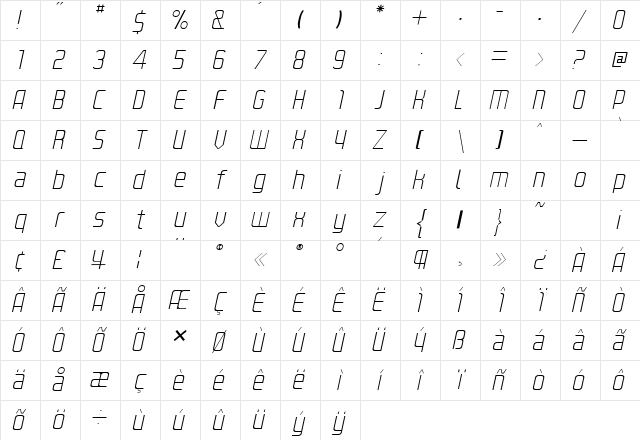
Kanal Italic Free Font
Kanal Italic
Design Context for Kanal
Kanal is a composed and adaptable typeface that performs quietly and consistently across a wide range of design contexts. The slanted form adds forward momentum and visual energy.
Pro Tip: Use Kanal for emphasis, pull quotes, and subheadings where its slanted energy can add rhythm to the layout.